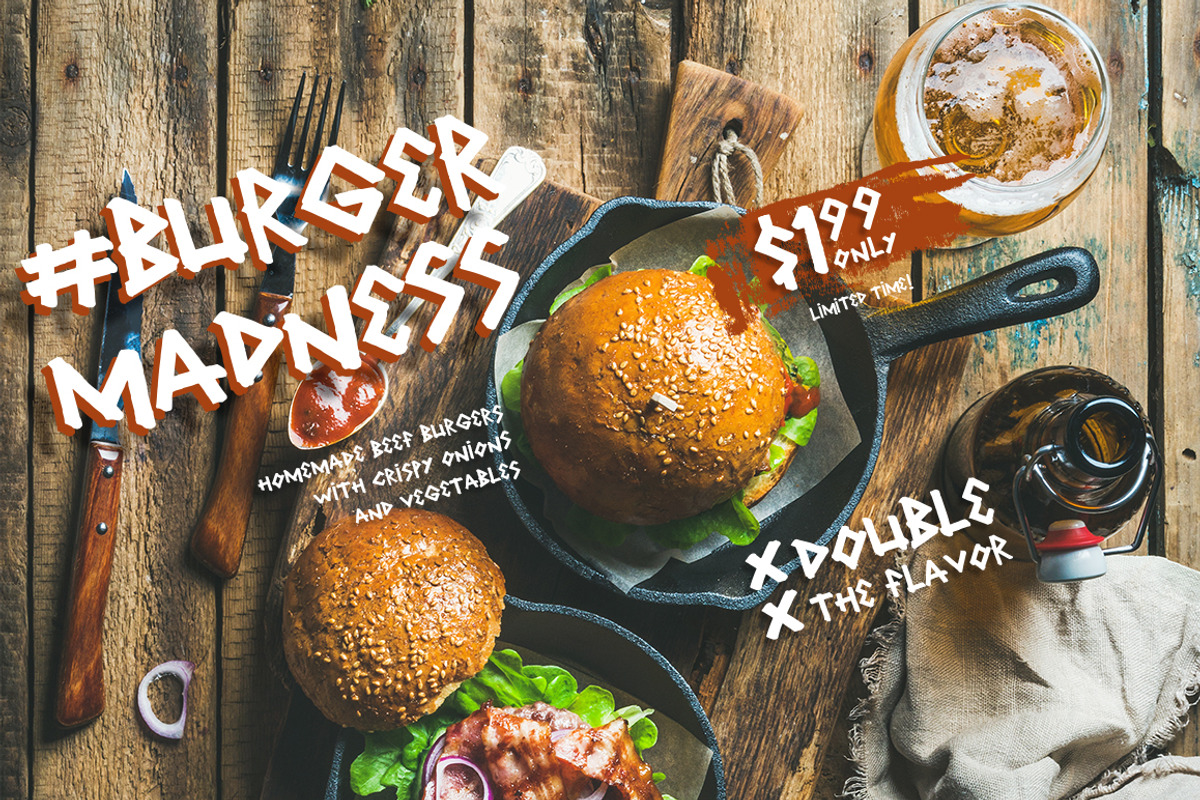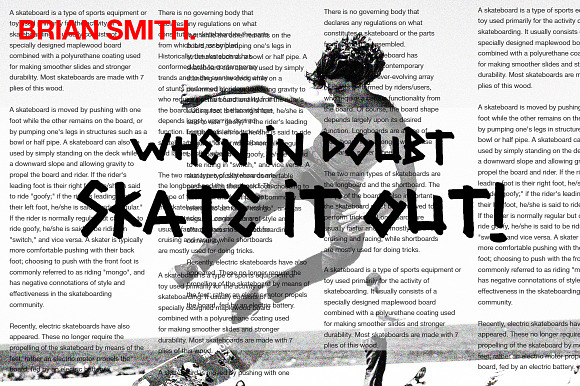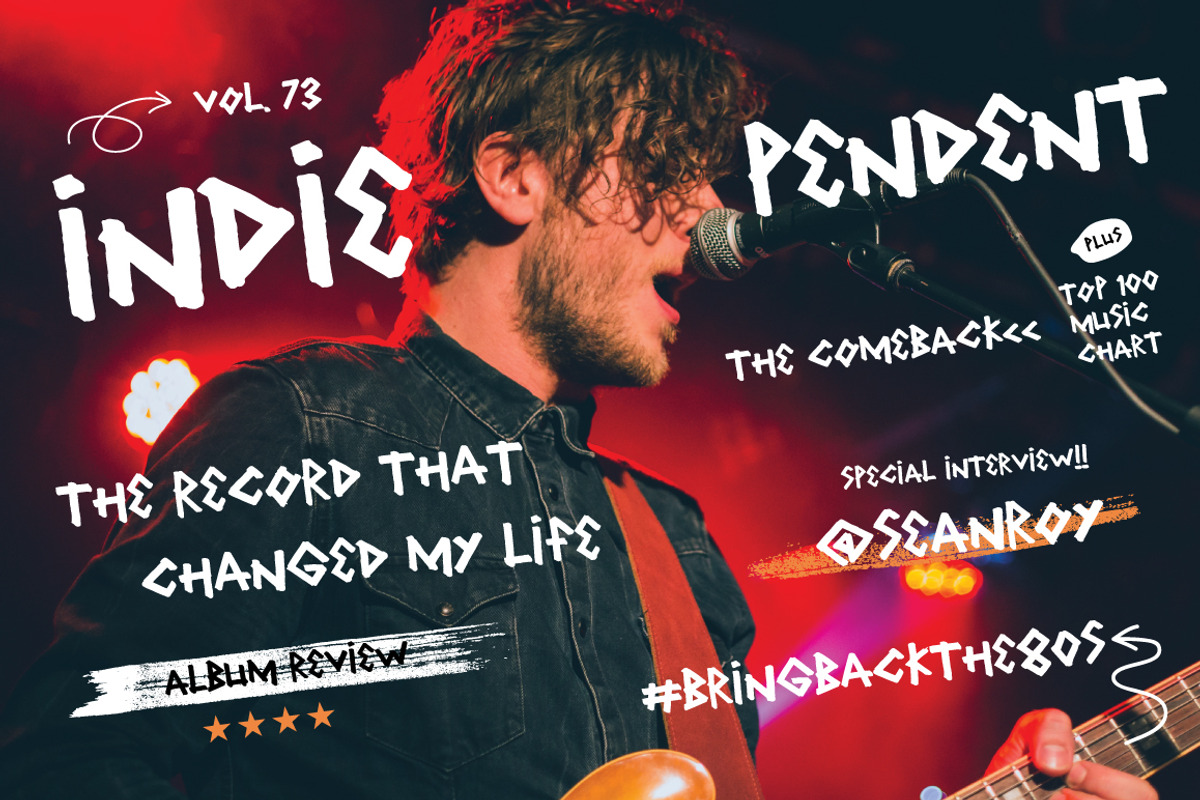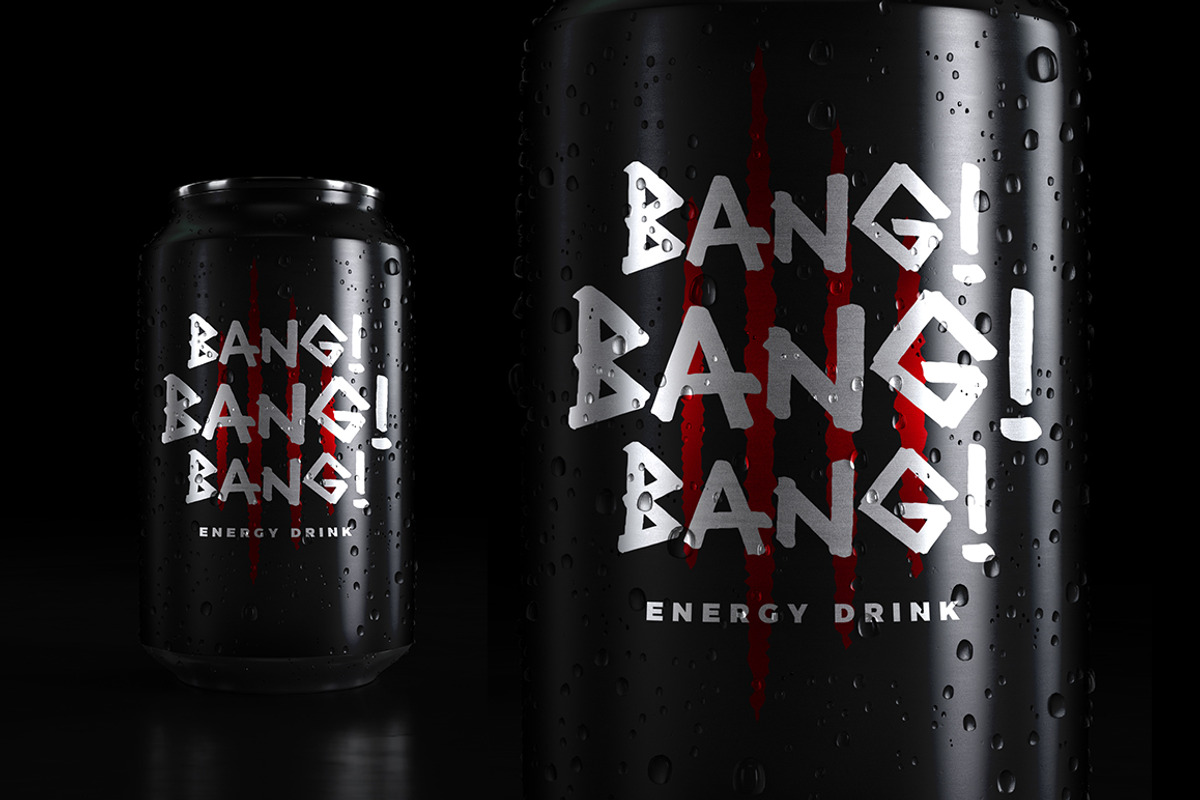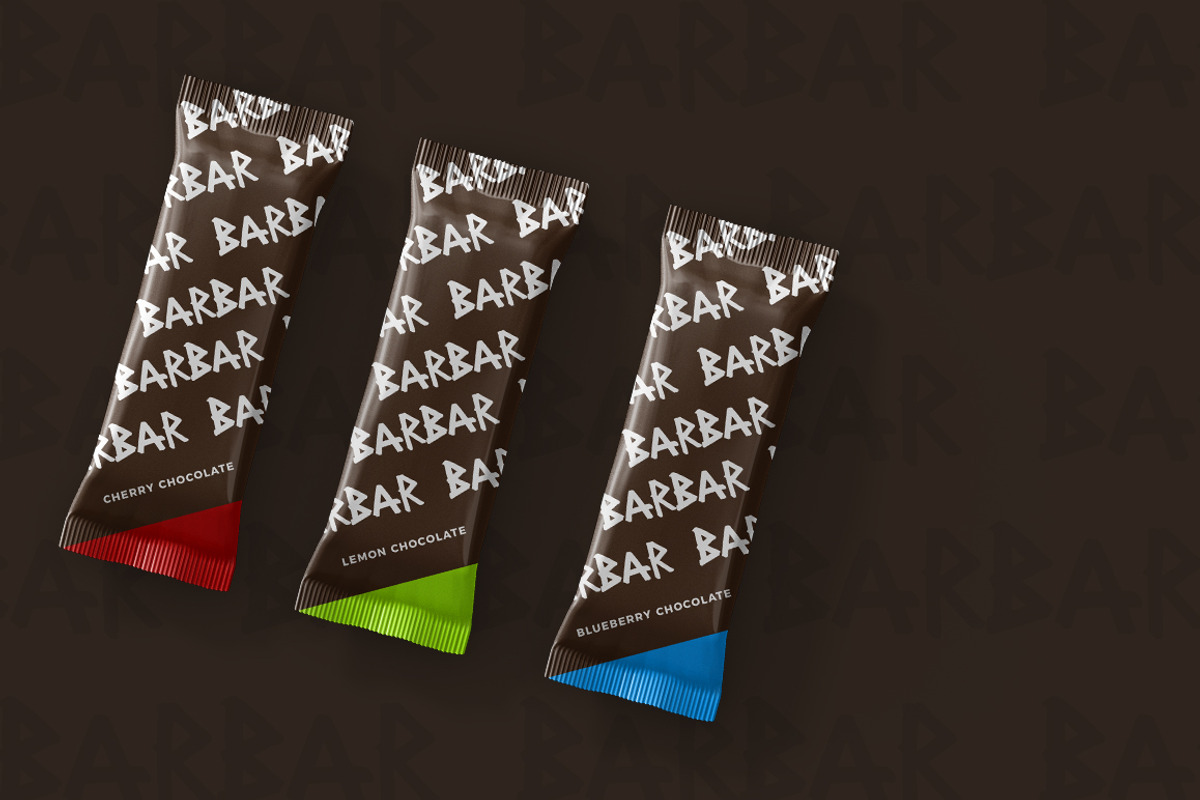
Created using bullet tip marker and with a lot of swagger.
I always wanted rugged marker font style for my design project and I can’t find the one that I wanted on the most markets, so I make this font that will fill that void in the market, and I hope it could help you improve your designs.
You can use the Swag Marker font in almost anything, from creating an album cover, restaurant menu, T-shirt design, magazine cover, to packaging designs, of course there is more than that but you get the idea ;-)
Swag Marker containing upper characters, numerals and a large range of punctuation.